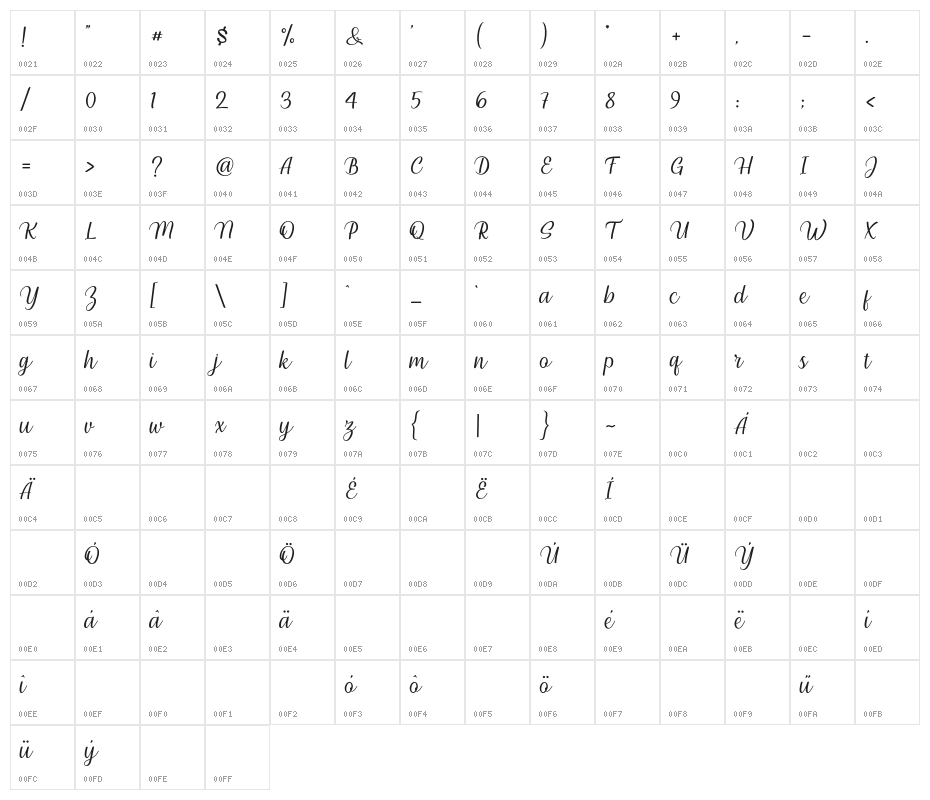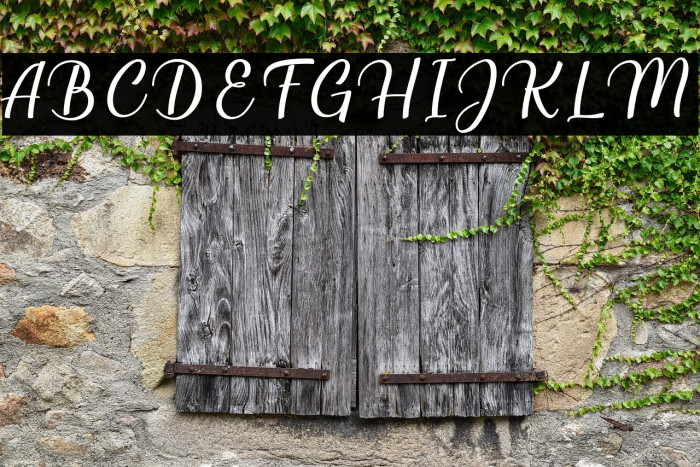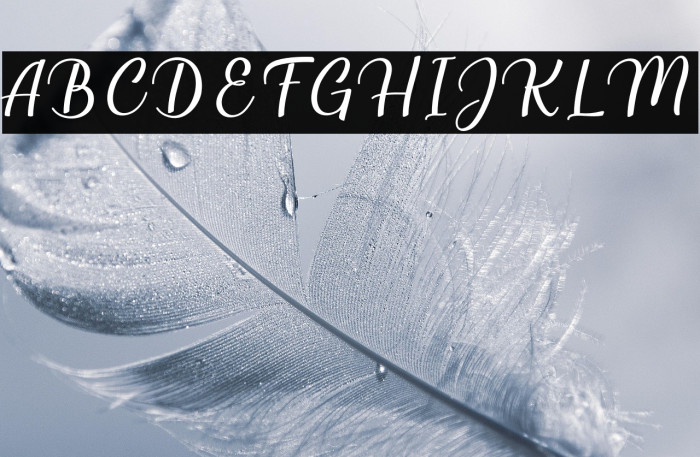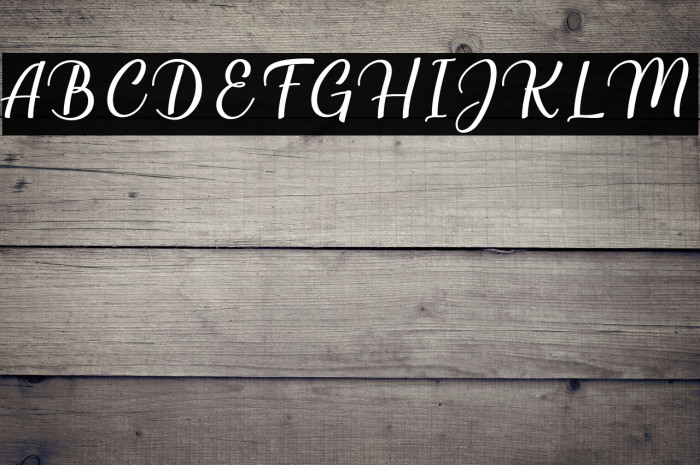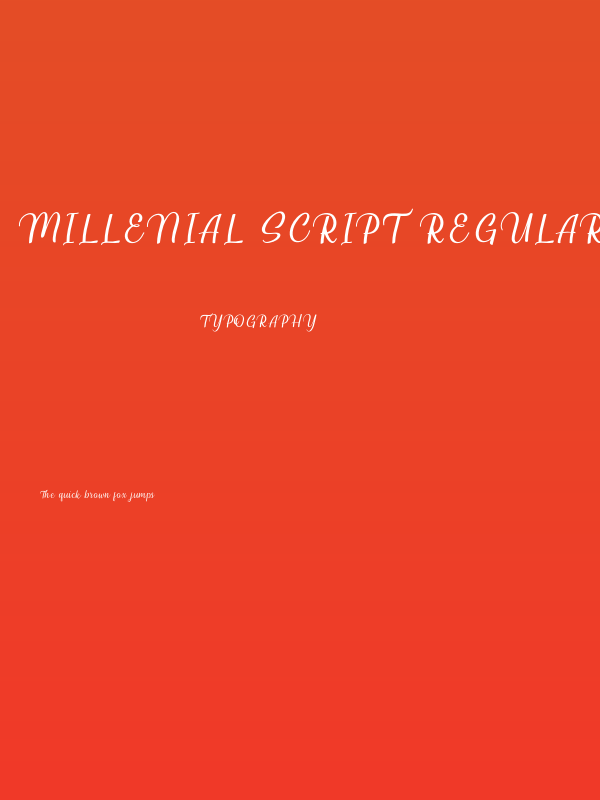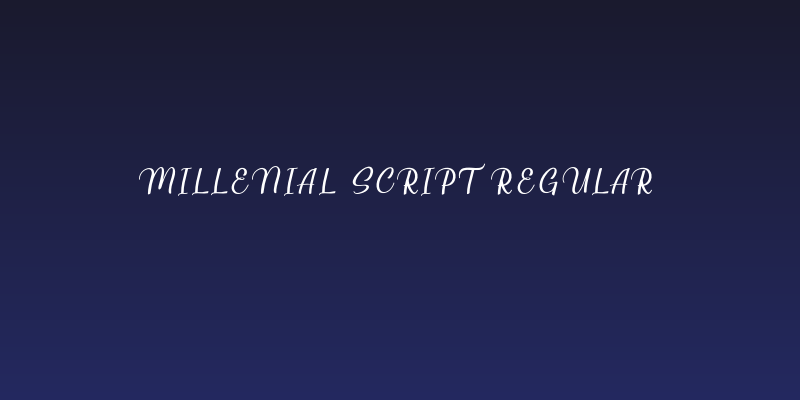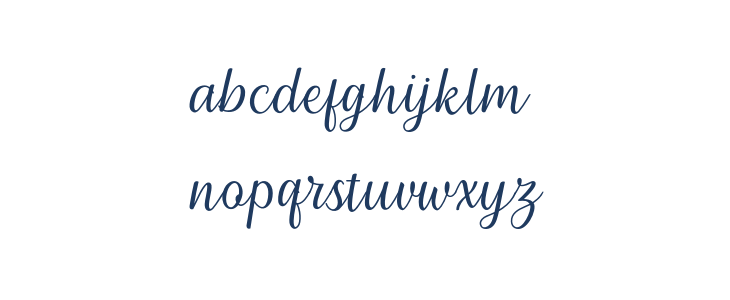
Millenial Script Regular Font
Millenial Script Regular Description
This elegant script font features flowing, cursive letters with a smooth and graceful appearance. The uppercase letters are slightly more ornate, with gentle curves and loops that add a touch of sophistication. The lowercase letters maintain a consistent style, with a natural slant that enhances the handwritten feel. The numerals are clear and easy to read, while the special characters blend seamlessly with the overall design. This font exudes a sense of elegance and charm, making it suitable for a variety of creative projects.
| Proposed Projects | Ideal for wedding invitations, greeting cards, branding, and elegant logos. |